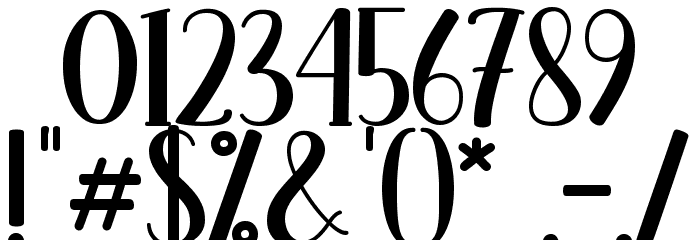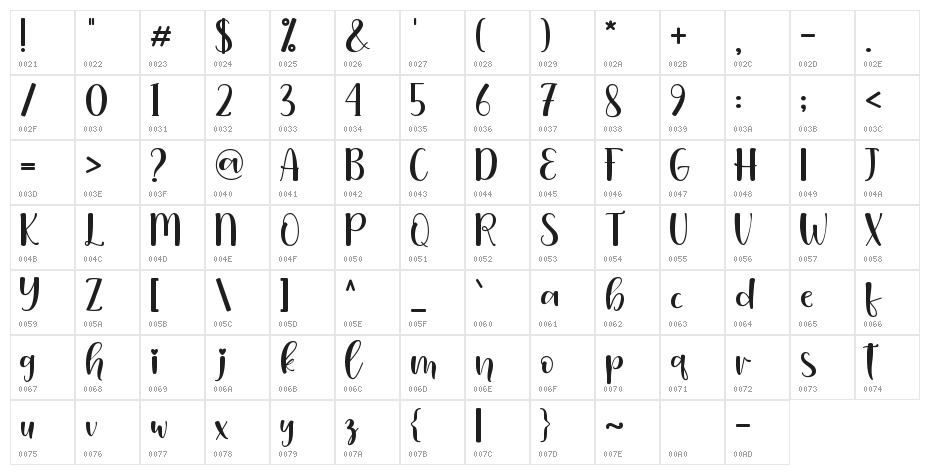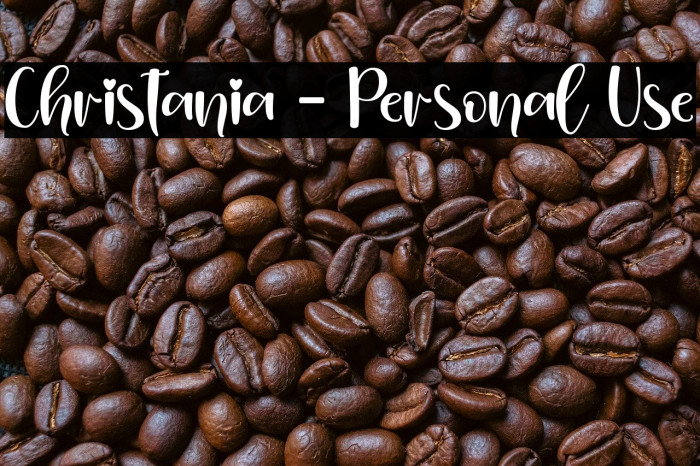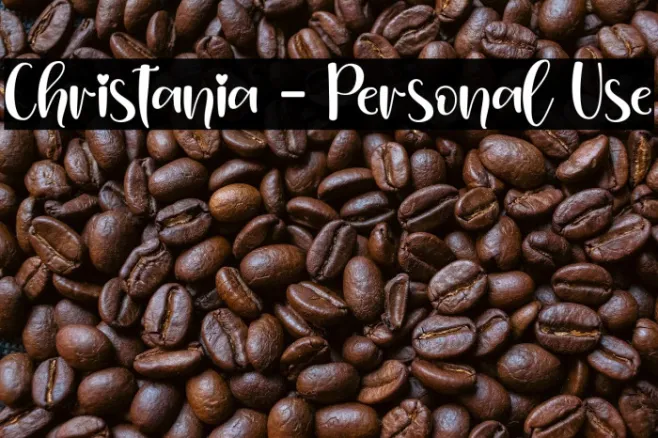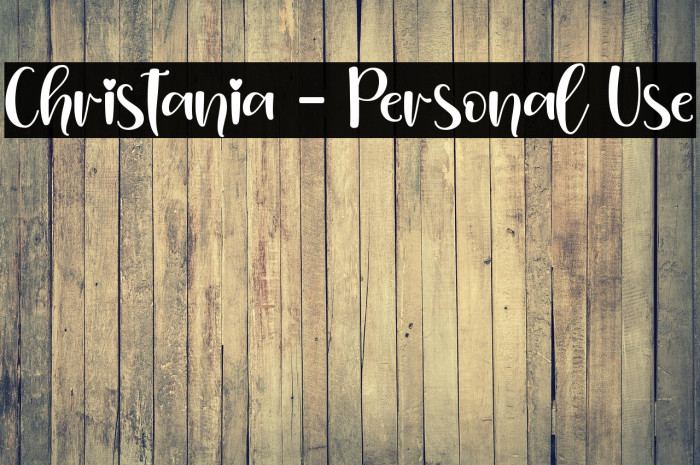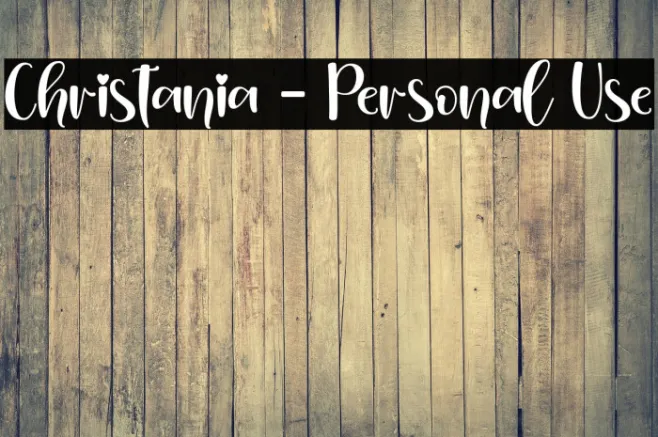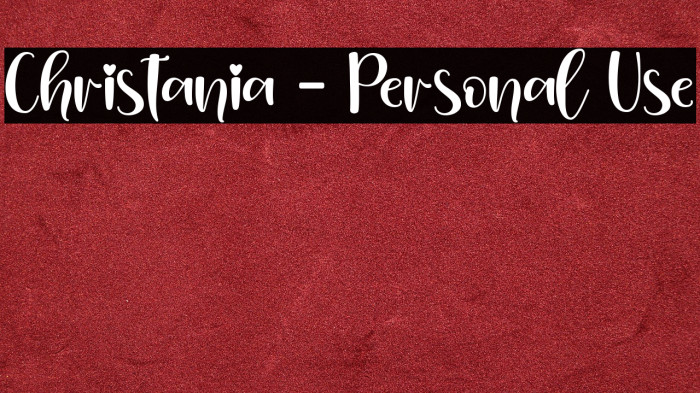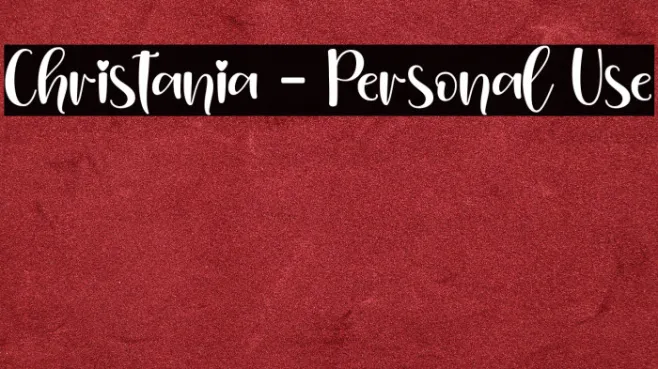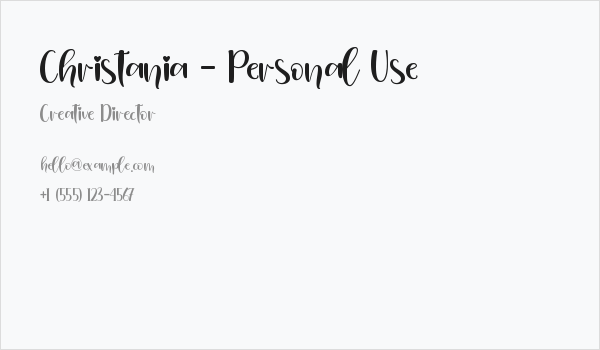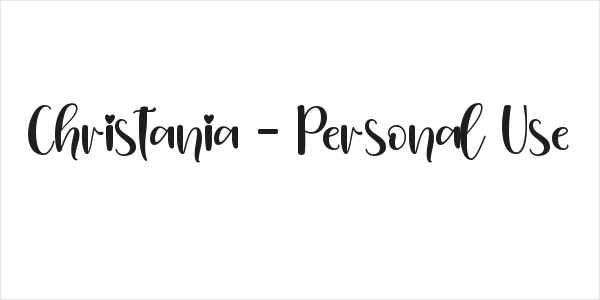
Christania - Personal Use Font
Christania - Personal Use Description
This font features a playful and whimsical design with a handwritten style that exudes personality and charm. The uppercase letters are bold and slightly condensed, with a mix of thick and thin strokes that add a dynamic feel. The lowercase letters maintain a consistent flow, with some characters incorporating unique flourishes, such as heart shapes within the letters. Numbers are distinct and maintain the playful aesthetic, while special characters are creatively styled to match the overall theme. The font's design is suitable for projects that require a touch of fun and creativity, making it ideal for invitations, greeting cards, and playful branding.